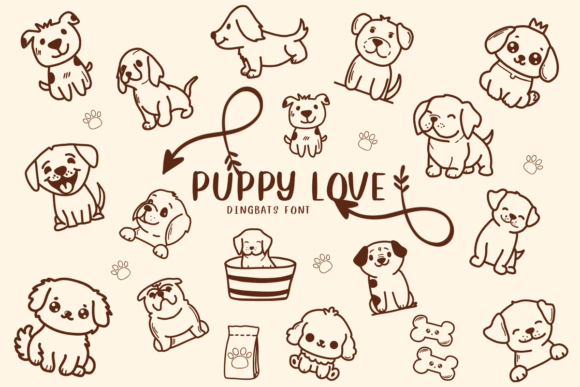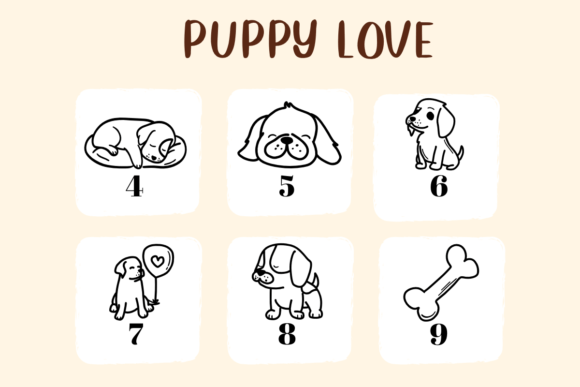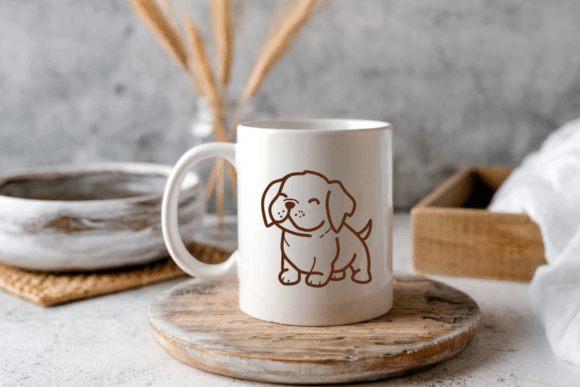
Puppy Love Font
Puppy Love is a dingbats font with a canine theme. This font can enhance your creative projects such as wedding invitations, DIY, crafts, decorations, logos, and many other creative ideas.